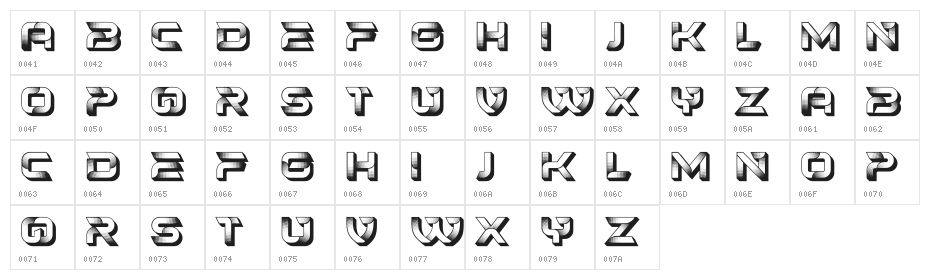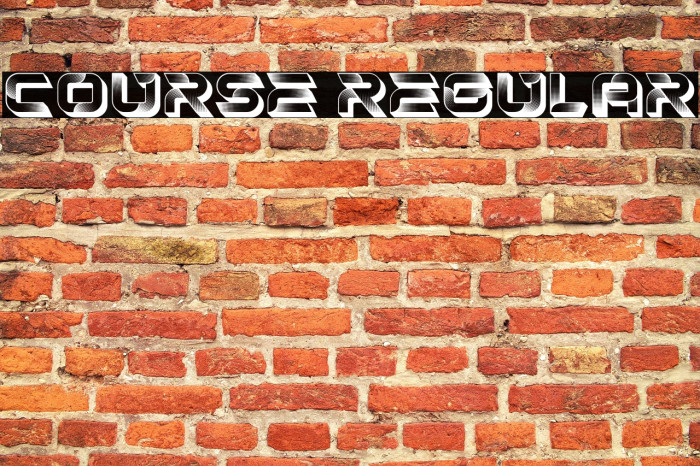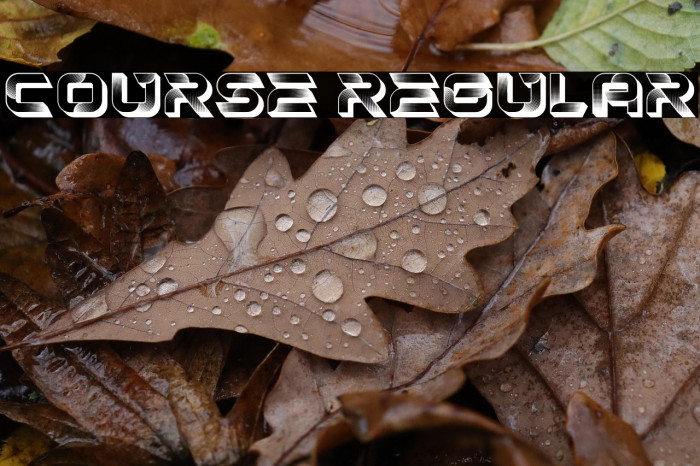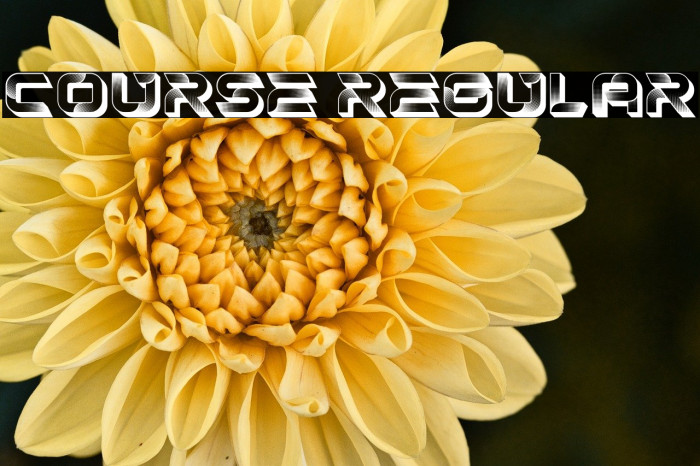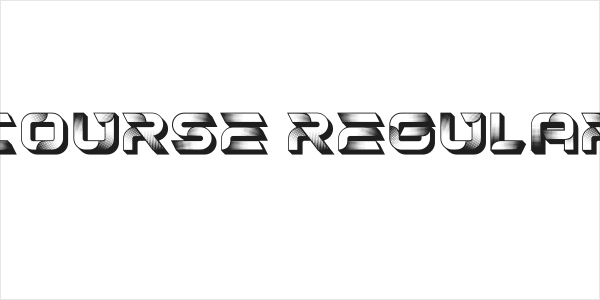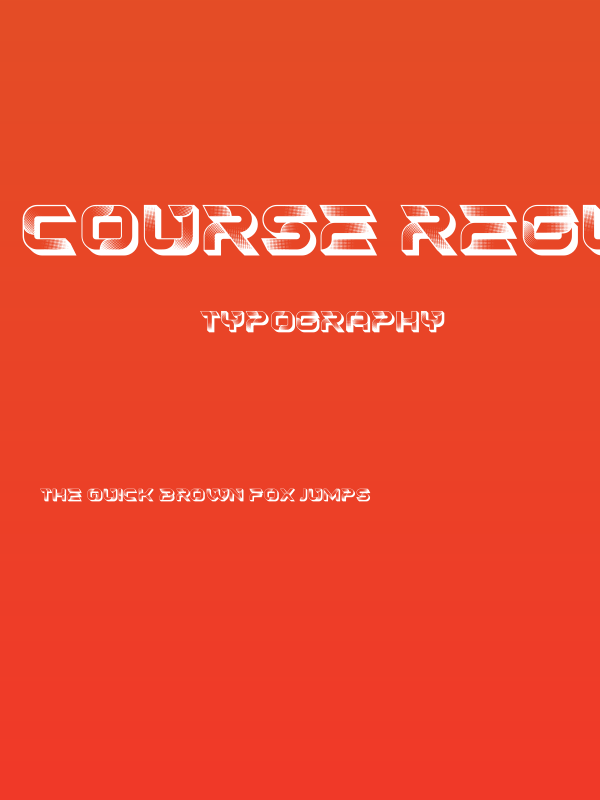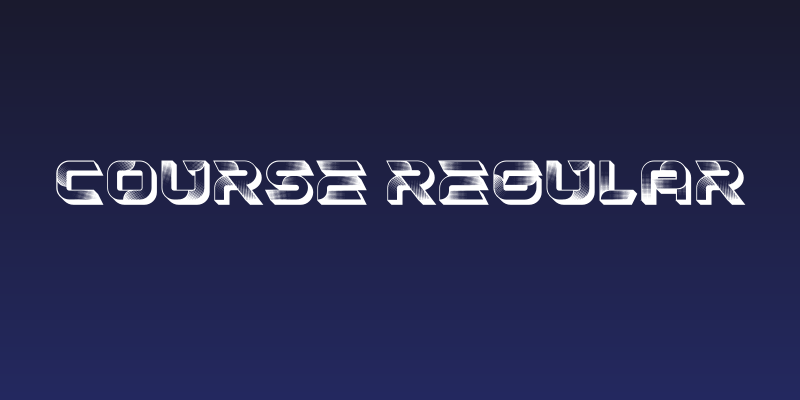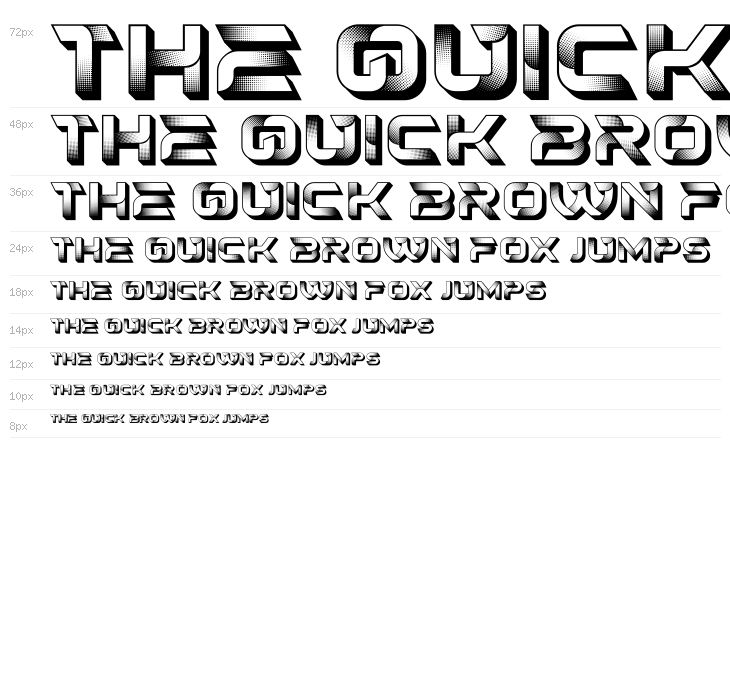
Course Regular Font
Course Regular Description
This font features a bold, three-dimensional design with a futuristic and industrial feel. The letters are constructed with a blocky, geometric style, incorporating shading and highlights to create a sense of depth and texture. The use of horizontal lines and gradients within the characters adds a dynamic, metallic appearance, reminiscent of machinery or digital interfaces. The overall aesthetic is modern and eye-catching, making it suitable for projects that require a strong visual impact.
| Overall Style | Modern, Futuristic |
| Proposed Projects | Ideal for use in technology branding, video game titles, sci-fi movie posters, and industrial-themed graphic designs. |